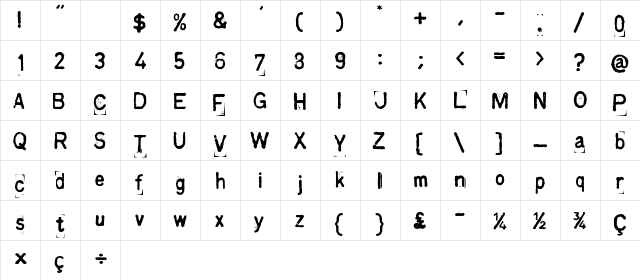
Kingthings Printingkit Regular Font Preview
Kingthings Printingkit Regular
Kingthings Printingkit Regular Font Details
| Designer | Kevin King: Kingthings 2002 |
Design Context for Kingthings Printingkit Typeface
Kingthings Printingkit takes a measured approach to typography — its balanced proportions and neutral character make it a reliable workhorse for both digital and print work. Its slender proportions lend an understated elegance to any composition.